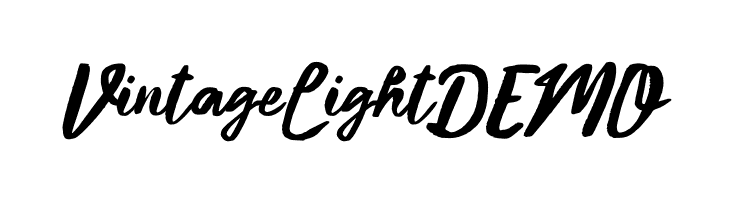
A bold, flowing script font with a vintage style and elegant flourishes.
Bold cursive script with a vintage style.
A vintage, cursive font with elegant and flowing strokes.